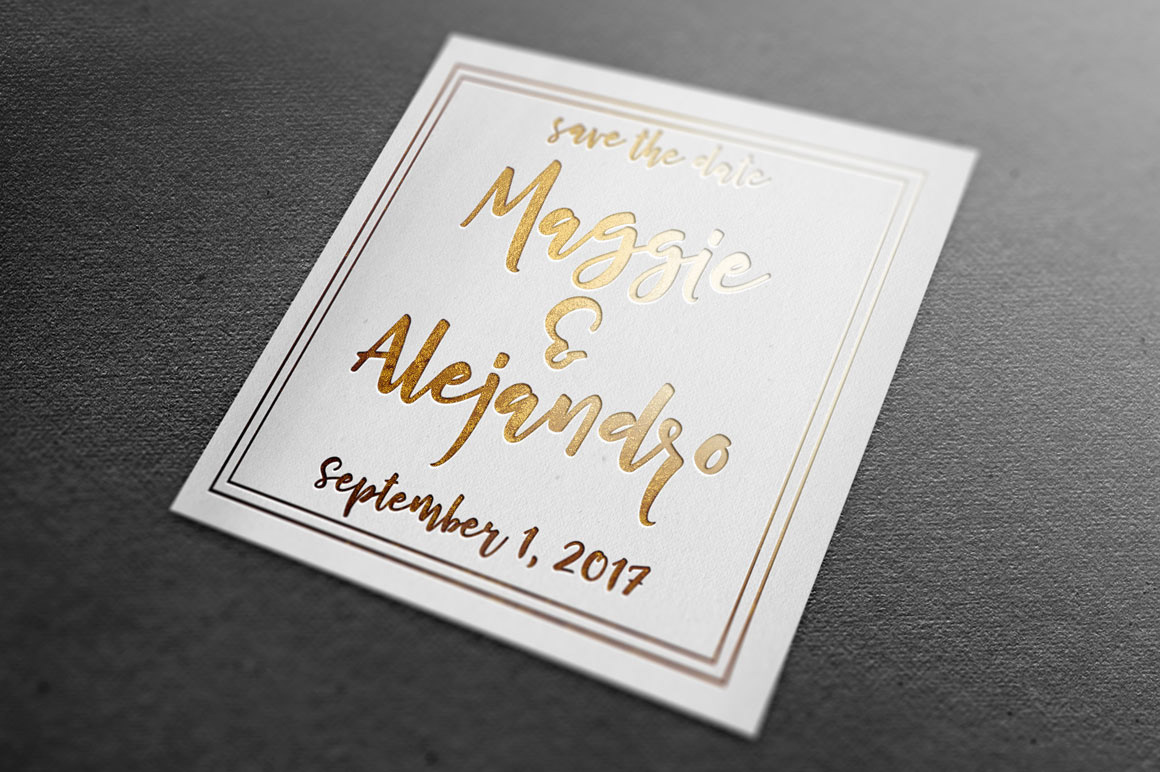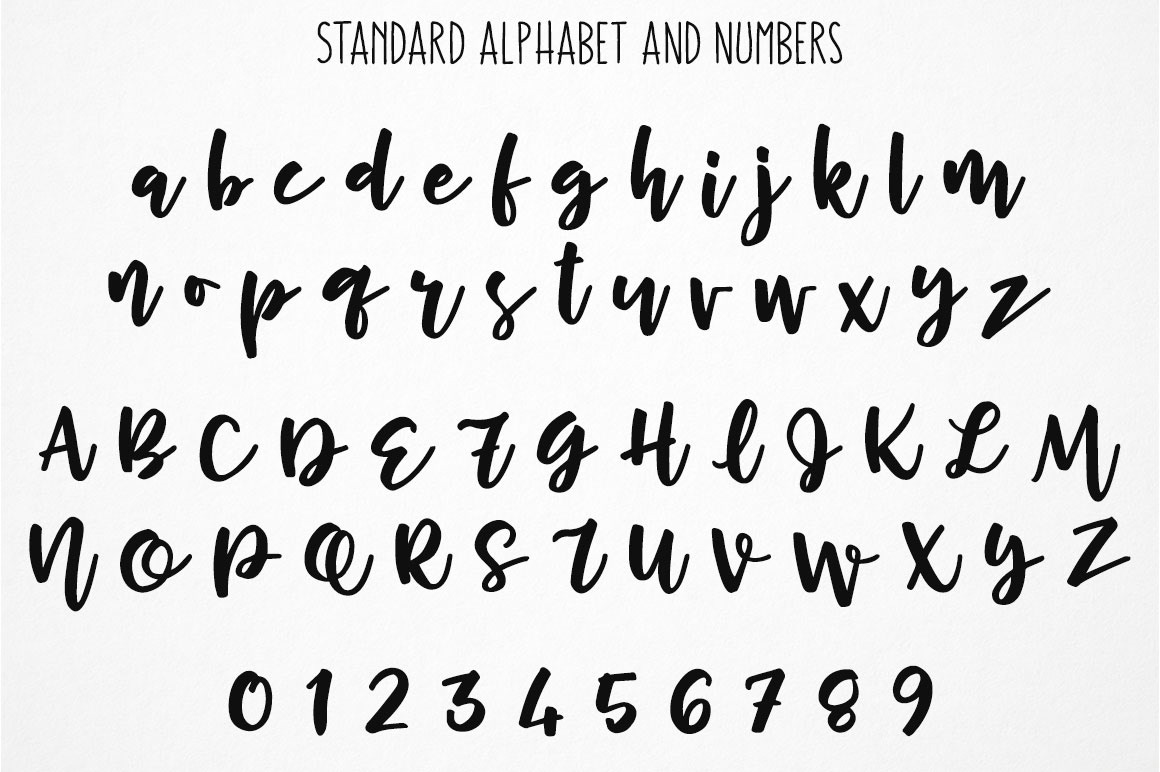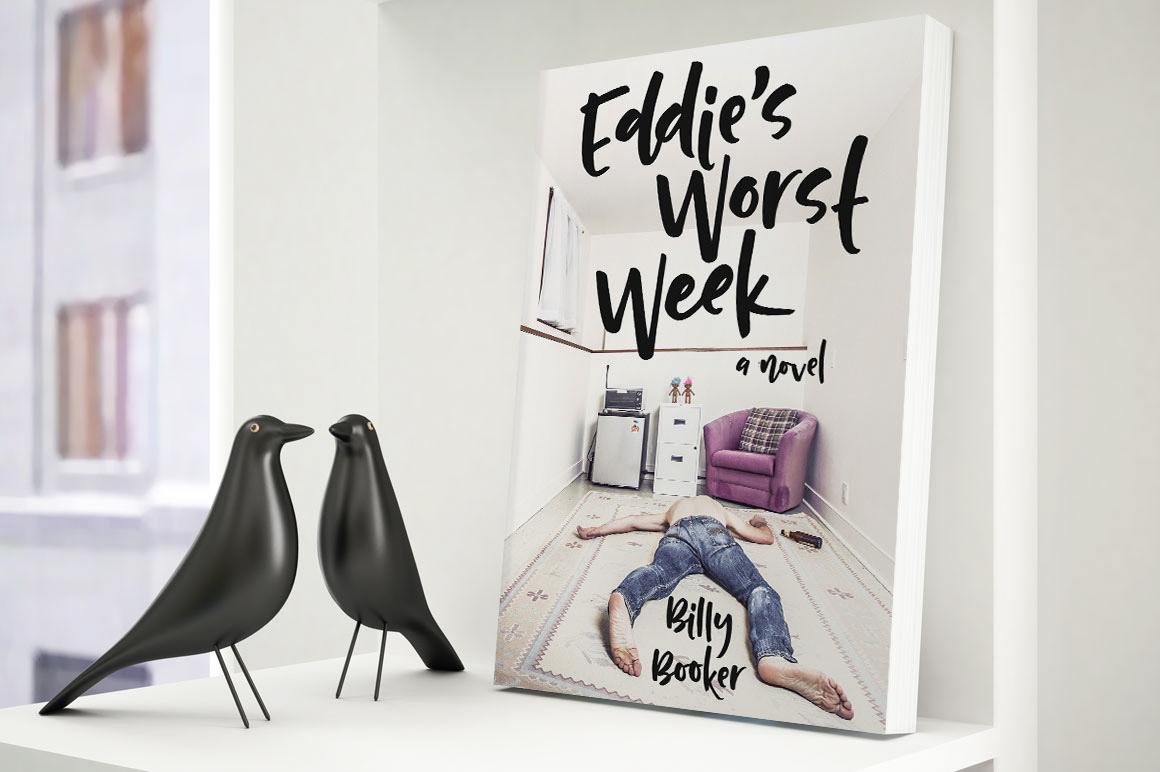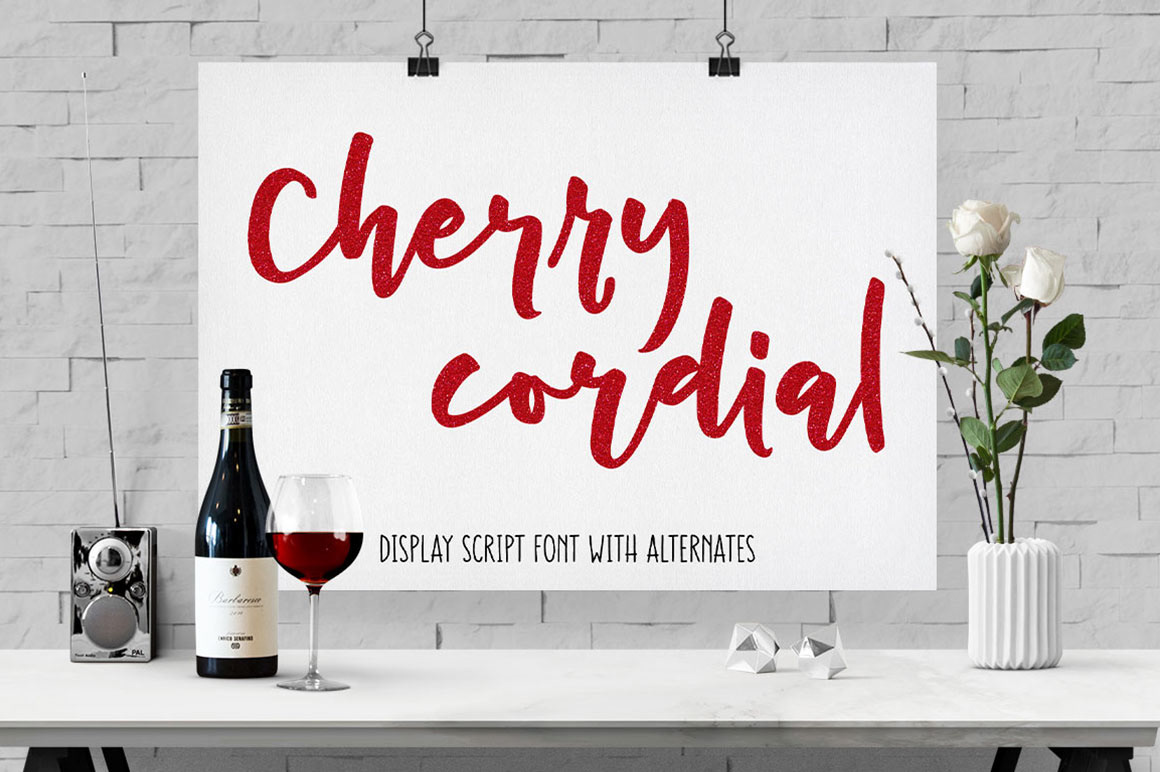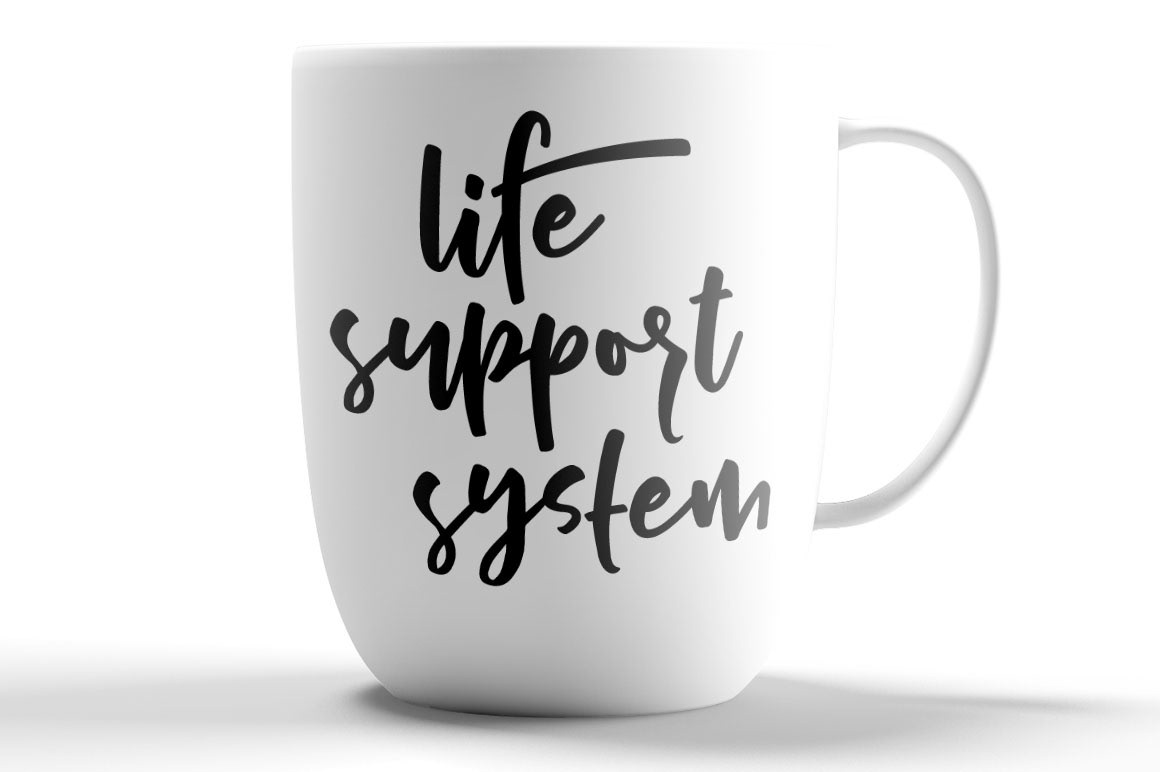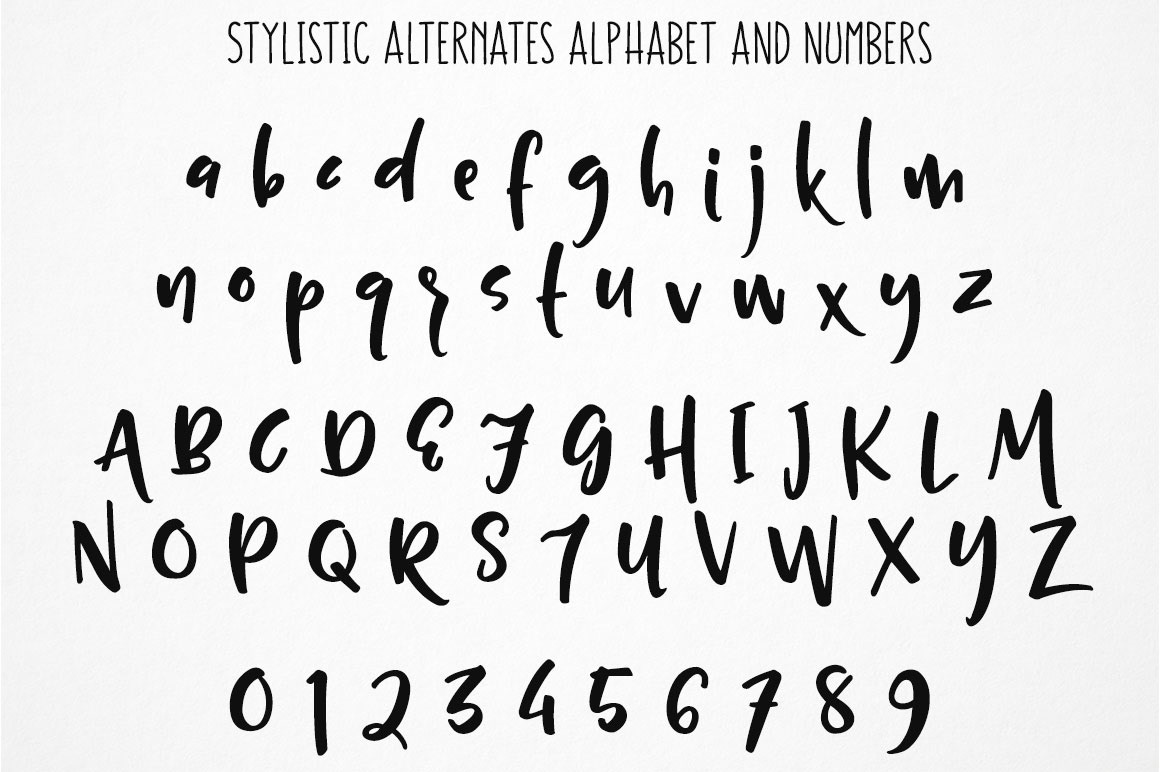
Introducing Cherry Cordial, a new connecting script font with a full second alphabet of print characters, so you can mix and match for a unique look! It also comes with a number of flourish characters, as well as even more alternates for some letters to add extra drama to your work.
Cherry Cordial contains a full set of punctuation, over 35 ligatures, and over 200 accented characters for foreign language support (including English, French, Spanish, German, Polish, Romanian, Portuguese, Swedish, Finnish, Norwegian, Danish, Esperanto, Czech, Dutch, Welsh, Filipino, Turkish, and more!)
Cherry Cordial includes:
– Standard uppercase and lowercase alphabets
– Full stylistic alternate alphabet and number set
– Over 200 accented characters for foreign language support
– Over 35 ligatures
– Numerous extra letters and flourishes